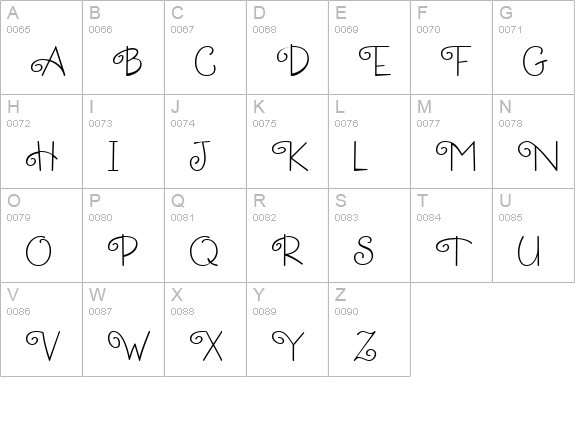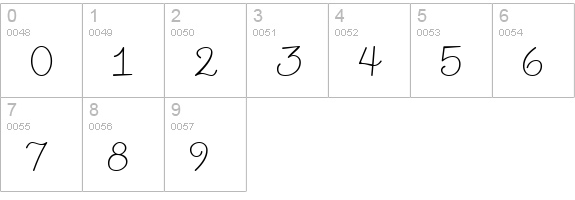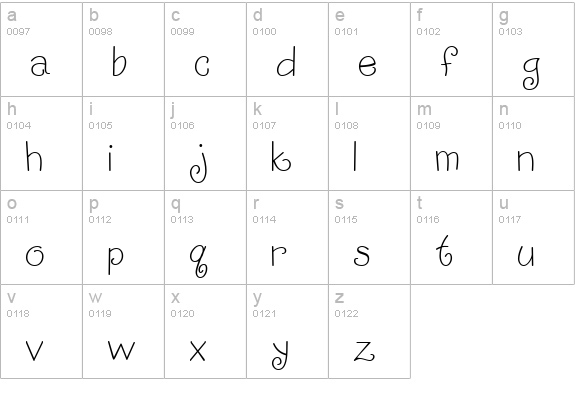
CK Curly Font Details
Introducing CK Curly font, a whimsical and playful typeface that is sure to bring a touch of charm to your designs. This unique font features curly and flowing letterforms that exude a sense of creativity and fun. Perfect for adding a touch of personality to invitations, posters, logos, and more. And the best part? CK Curly font is completely free to download at FontsMarket.com! Don't miss out on this fantastic opportunity to enhance your projects with this delightful and eye-catching typeface. Get your hands on CK Curly font today and let your creativity shine!